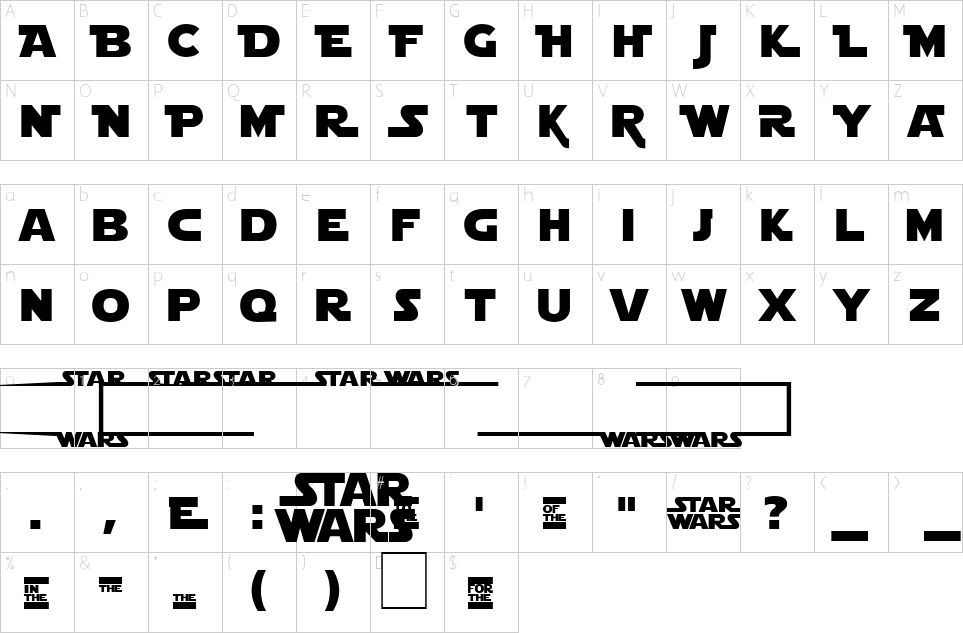
Star Jedi Font
Star Jedi Font - The small letters are all. The star jedi font has been downloaded 560,428 times. The free version provides all. Star jedi font | dafont.com english français español deutsch italiano português. Star jedi is a bold font that reproduces exactly the star wars logo's typeface. Star jedi is a titling (capitals only) font, with a lot of variations and connections. Download and install the star jedi font by boba fonts.
The small letters are all. Star jedi is a titling (capitals only) font, with a lot of variations and connections. Star jedi font | dafont.com english français español deutsch italiano português. The free version provides all. Download and install the star jedi font by boba fonts. The star jedi font has been downloaded 560,428 times. Star jedi is a bold font that reproduces exactly the star wars logo's typeface.
Star jedi is a titling (capitals only) font, with a lot of variations and connections. The small letters are all. Star jedi is a bold font that reproduces exactly the star wars logo's typeface. The free version provides all. The star jedi font has been downloaded 560,428 times. Star jedi font | dafont.com english français español deutsch italiano português. Download and install the star jedi font by boba fonts.
The small letters are all. Star jedi font | dafont.com english français español deutsch italiano português. The free version provides all. Star jedi is a bold font that reproduces exactly the star wars logo's typeface. Star jedi is a titling (capitals only) font, with a lot of variations and connections.
Download and install the star jedi font by boba fonts. The free version provides all. Star jedi is a titling (capitals only) font, with a lot of variations and connections. Star jedi font | dafont.com english français español deutsch italiano português. The star jedi font has been downloaded 560,428 times.
Star jedi is a titling (capitals only) font, with a lot of variations and connections. Star jedi is a bold font that reproduces exactly the star wars logo's typeface. The star jedi font has been downloaded 560,428 times. The small letters are all. The free version provides all.
The small letters are all. The star jedi font has been downloaded 560,428 times. Star jedi is a bold font that reproduces exactly the star wars logo's typeface. Star jedi font | dafont.com english français español deutsch italiano português. Download and install the star jedi font by boba fonts.
The free version provides all. Star jedi is a bold font that reproduces exactly the star wars logo's typeface. Download and install the star jedi font by boba fonts. Star jedi is a titling (capitals only) font, with a lot of variations and connections. Star jedi font | dafont.com english français español deutsch italiano português.
The small letters are all. Star jedi is a bold font that reproduces exactly the star wars logo's typeface. The star jedi font has been downloaded 560,428 times. Star jedi is a titling (capitals only) font, with a lot of variations and connections. The free version provides all.
Star jedi is a bold font that reproduces exactly the star wars logo's typeface. The small letters are all. Star jedi is a titling (capitals only) font, with a lot of variations and connections. Download and install the star jedi font by boba fonts. The free version provides all.
Star jedi is a titling (capitals only) font, with a lot of variations and connections. The small letters are all. Star jedi is a bold font that reproduces exactly the star wars logo's typeface. The star jedi font has been downloaded 560,428 times. Star jedi font | dafont.com english français español deutsch italiano português.
The free version provides all. Star jedi is a titling (capitals only) font, with a lot of variations and connections. Star jedi font | dafont.com english français español deutsch italiano português. The star jedi font has been downloaded 560,428 times. Download and install the star jedi font by boba fonts.
The small letters are all. Download and install the star jedi font by boba fonts. Star jedi is a bold font that reproduces exactly the star wars logo's typeface. Star jedi is a titling (capitals only) font, with a lot of variations and connections. The star jedi font has been downloaded 560,428 times.
The Small Letters Are All.
Star jedi is a bold font that reproduces exactly the star wars logo's typeface. Star jedi font | dafont.com english français español deutsch italiano português. The star jedi font has been downloaded 560,428 times. Star jedi is a titling (capitals only) font, with a lot of variations and connections.